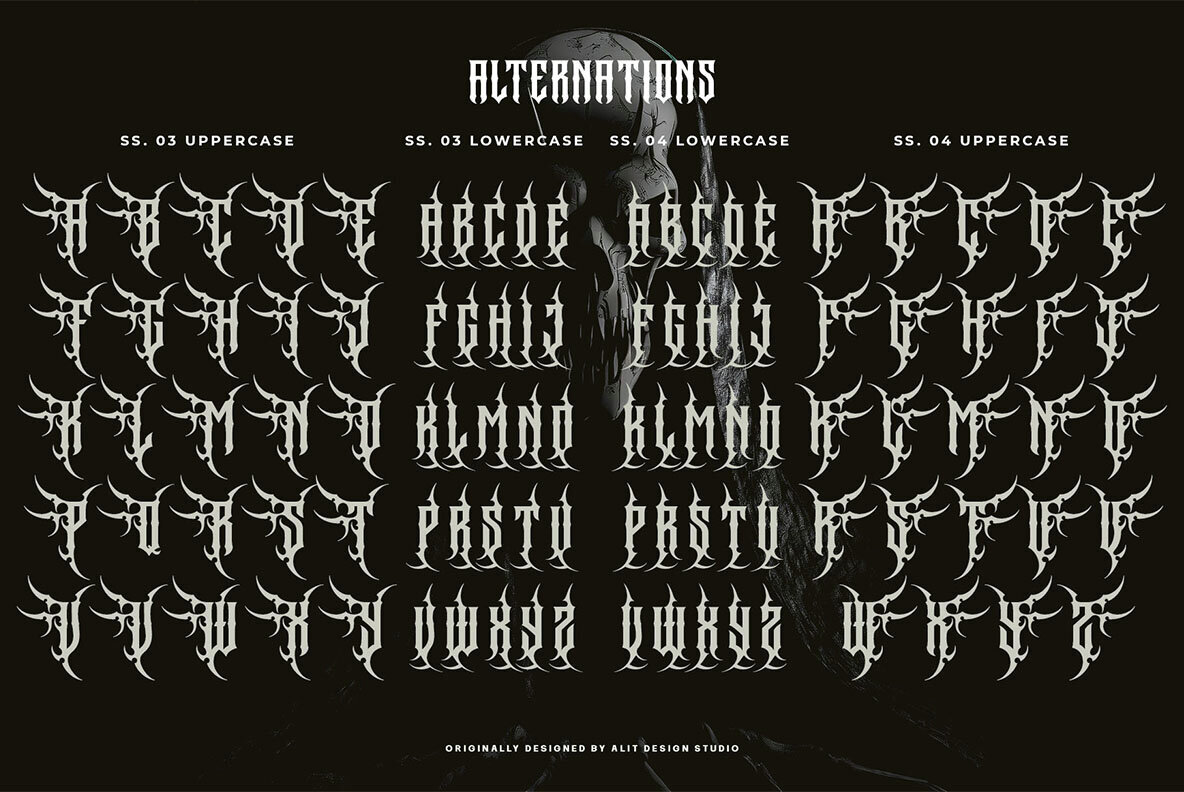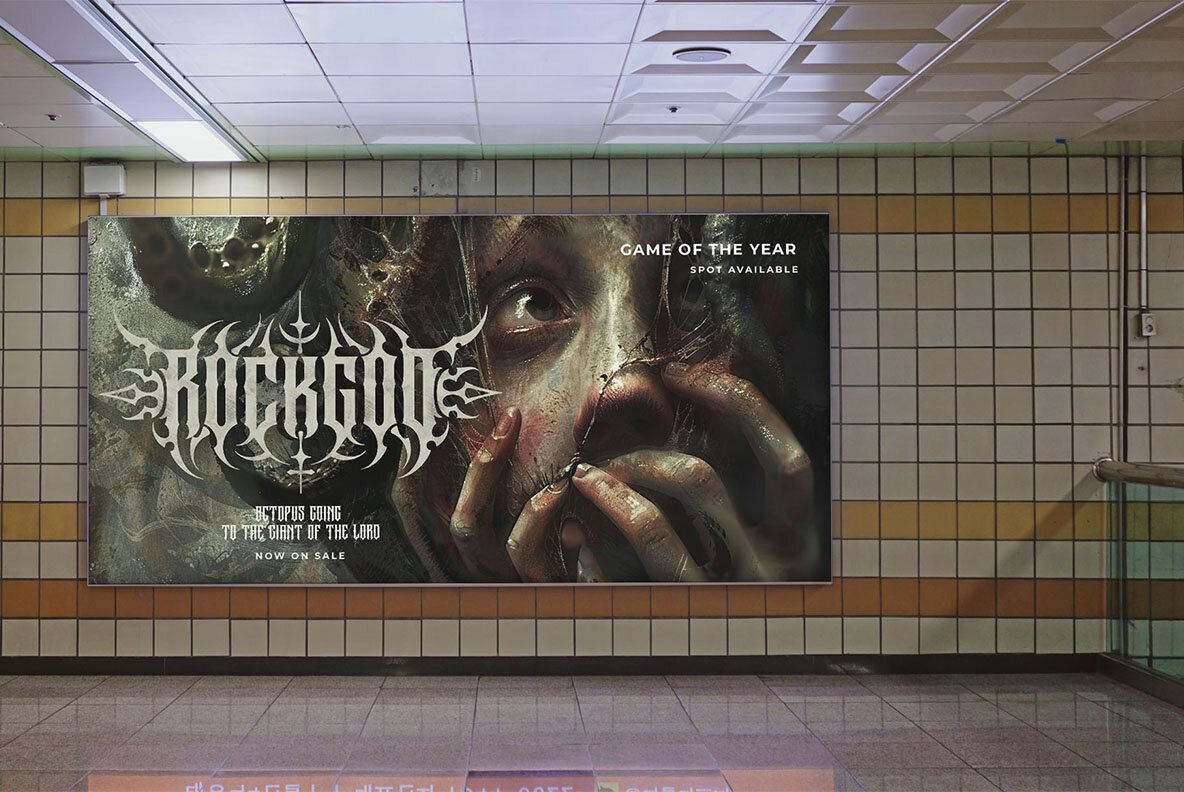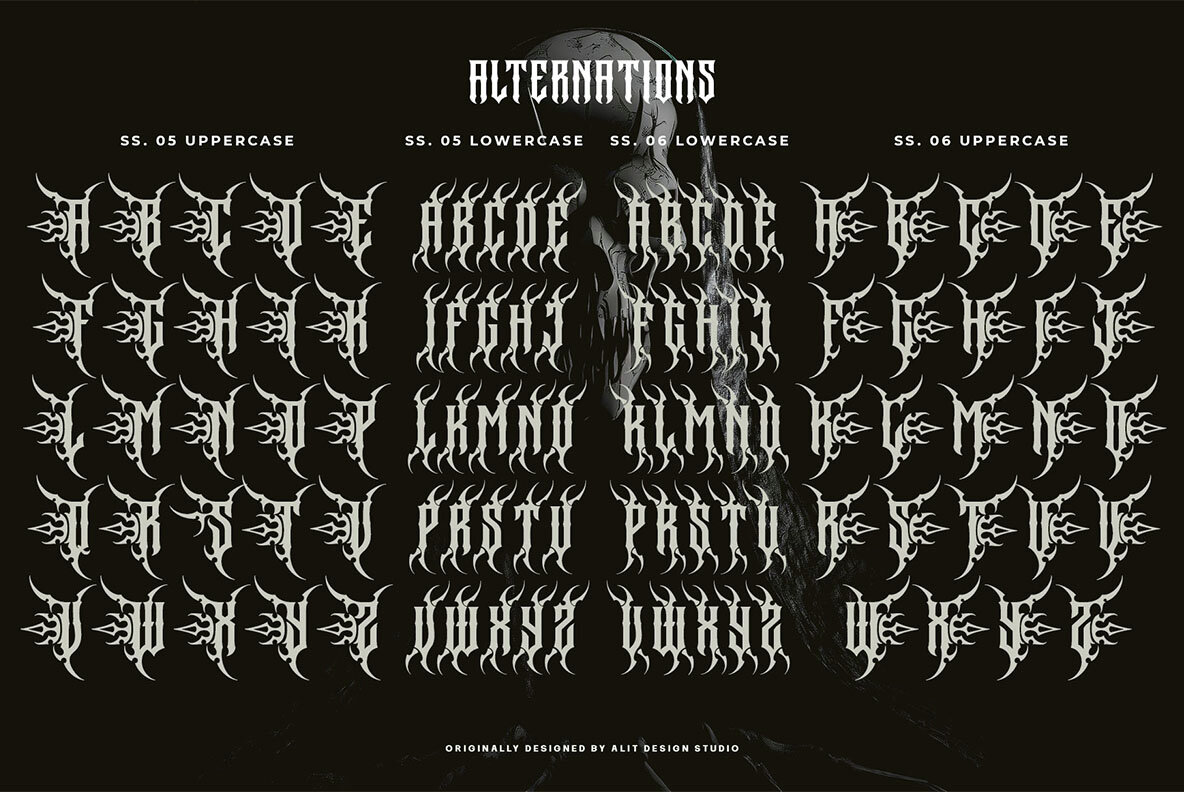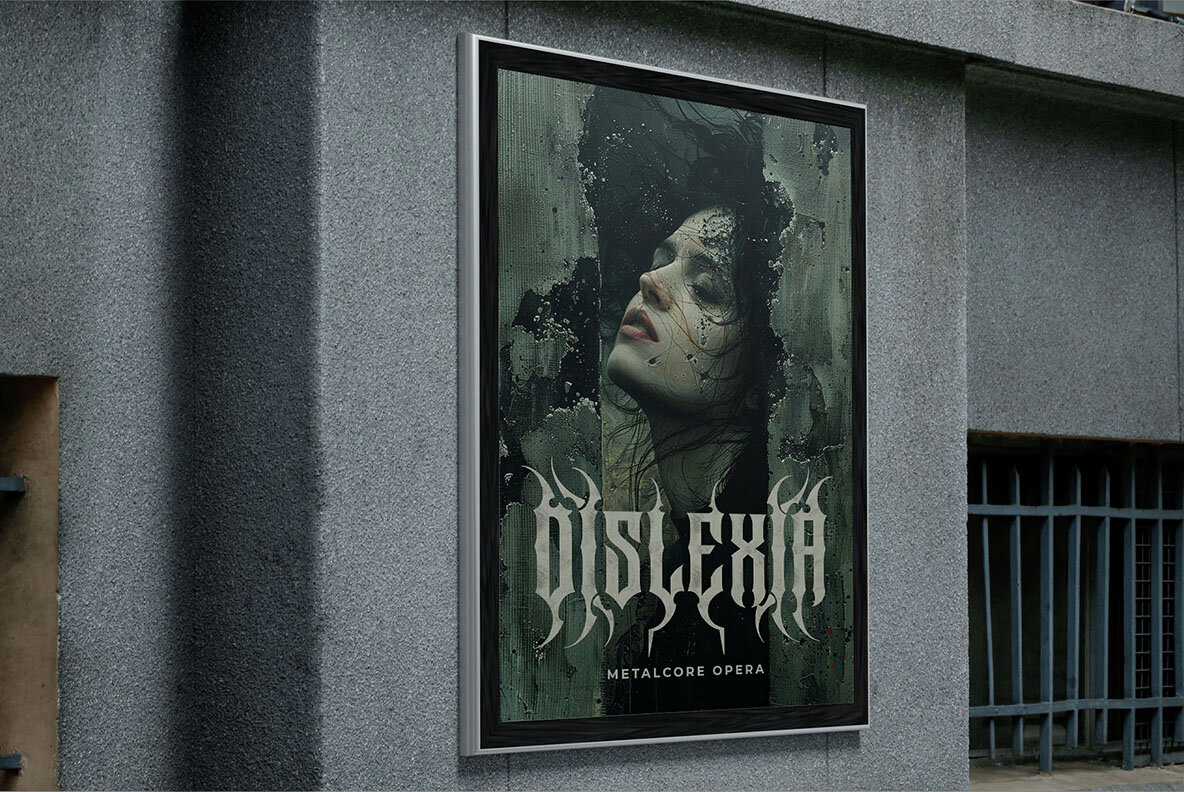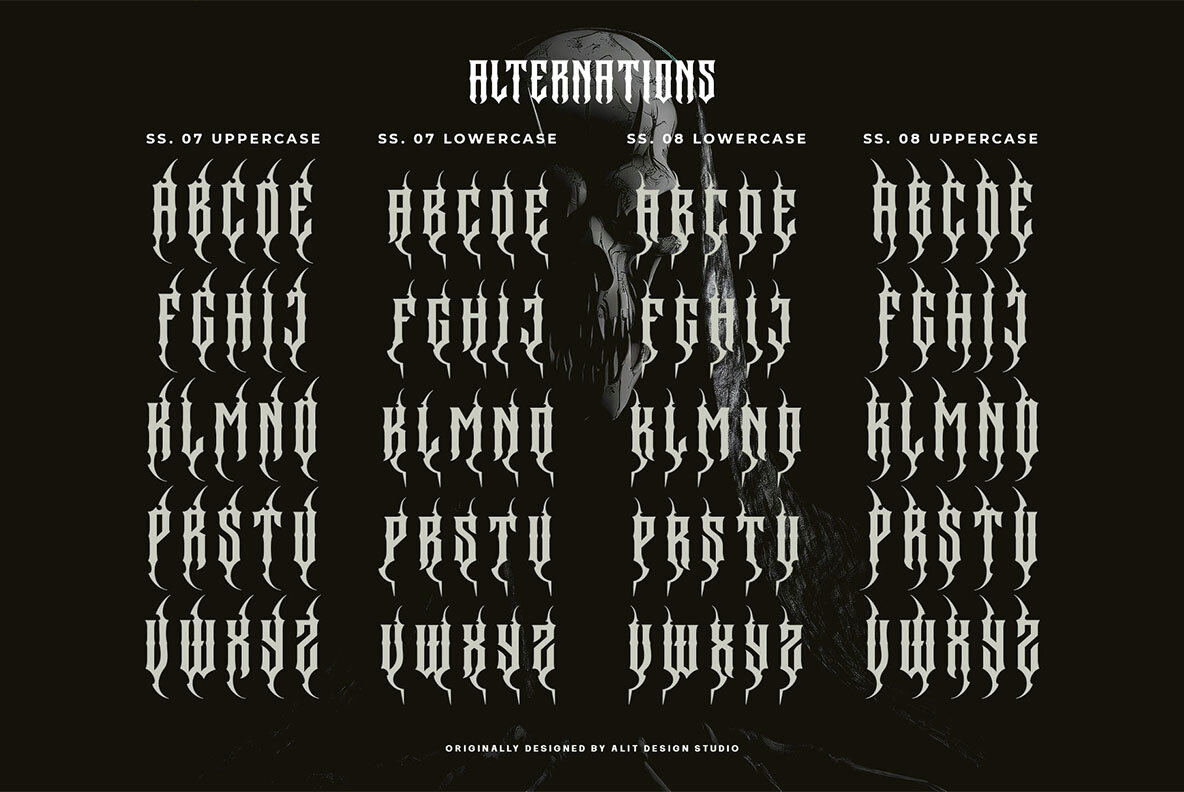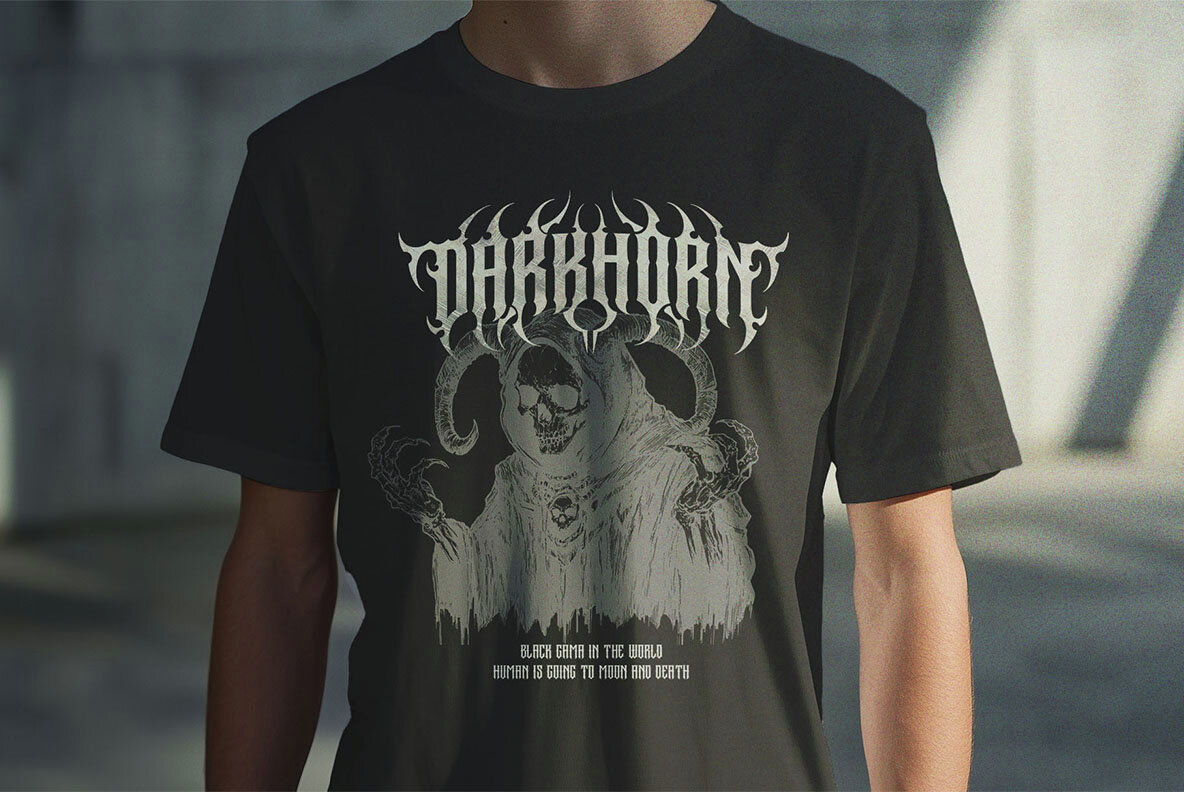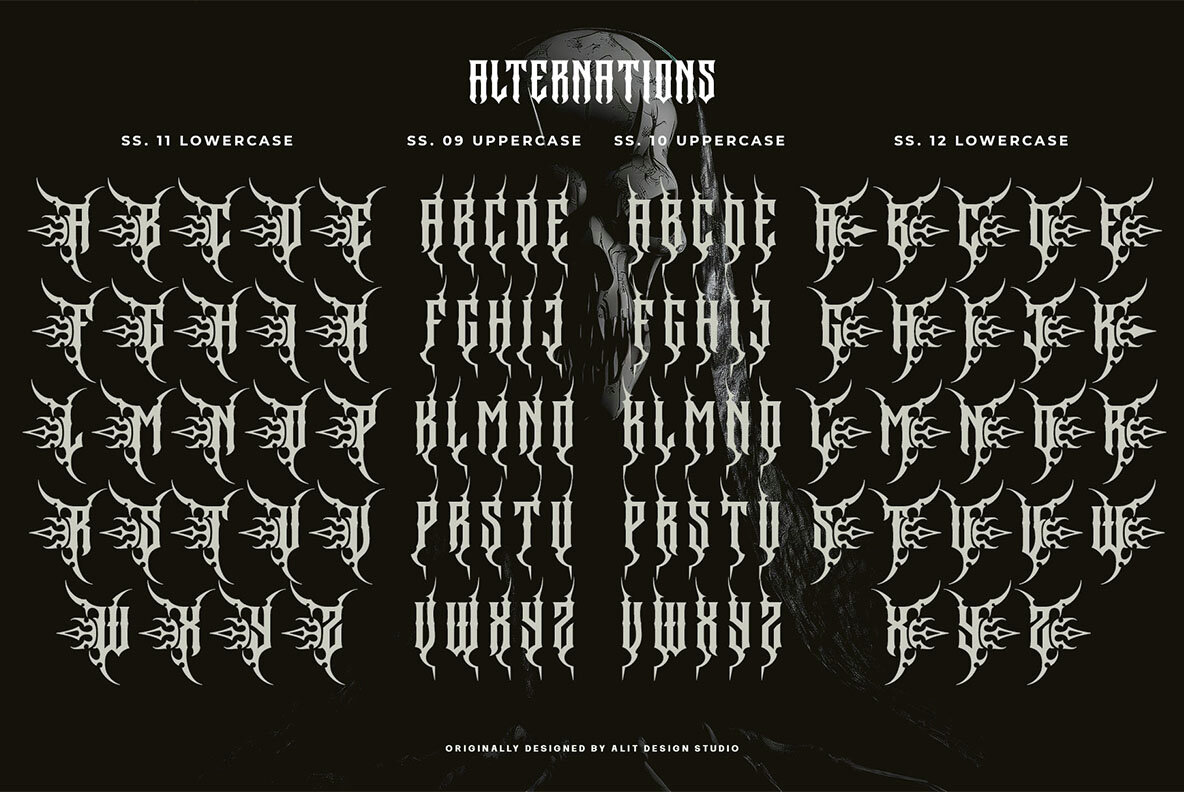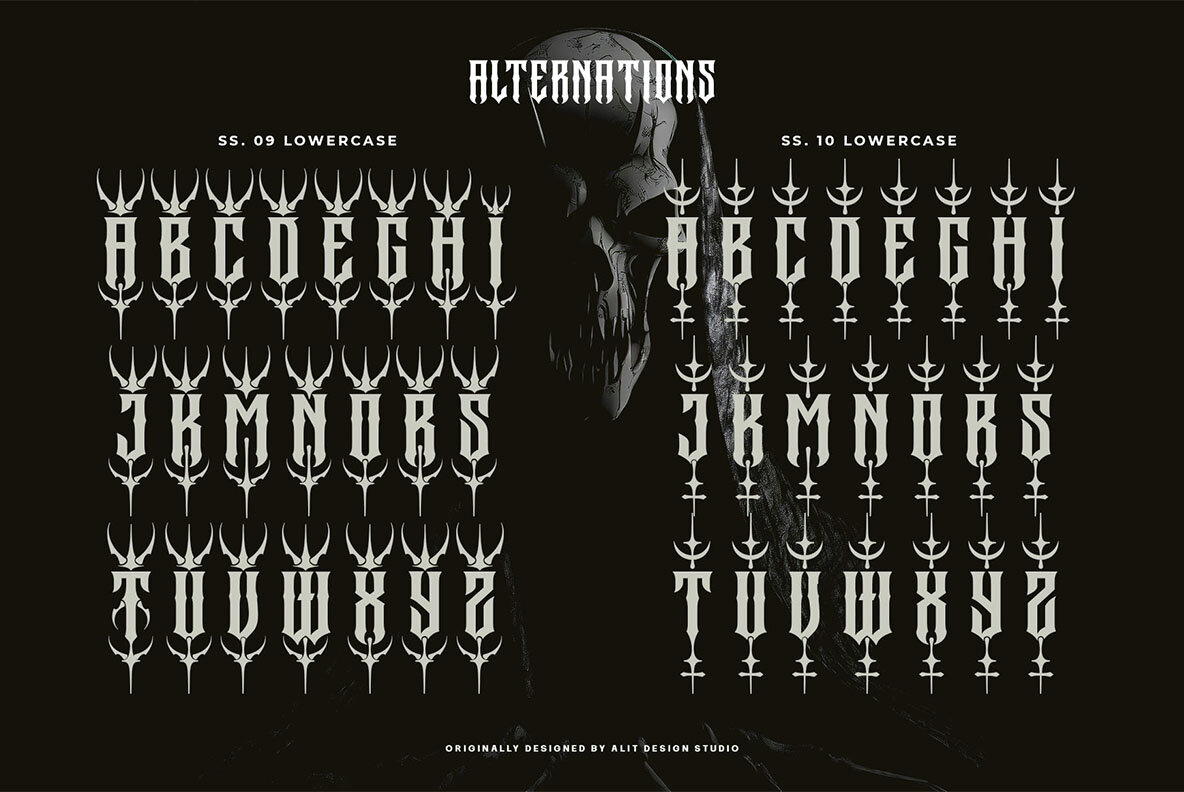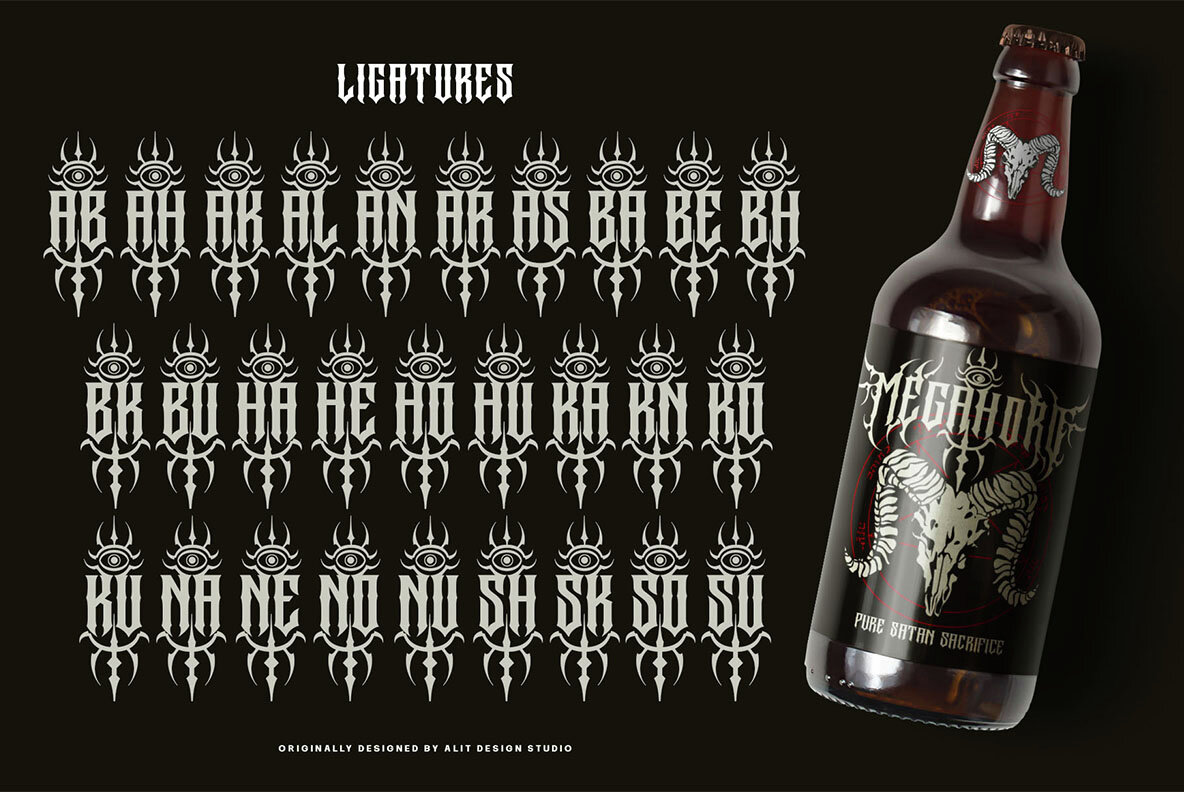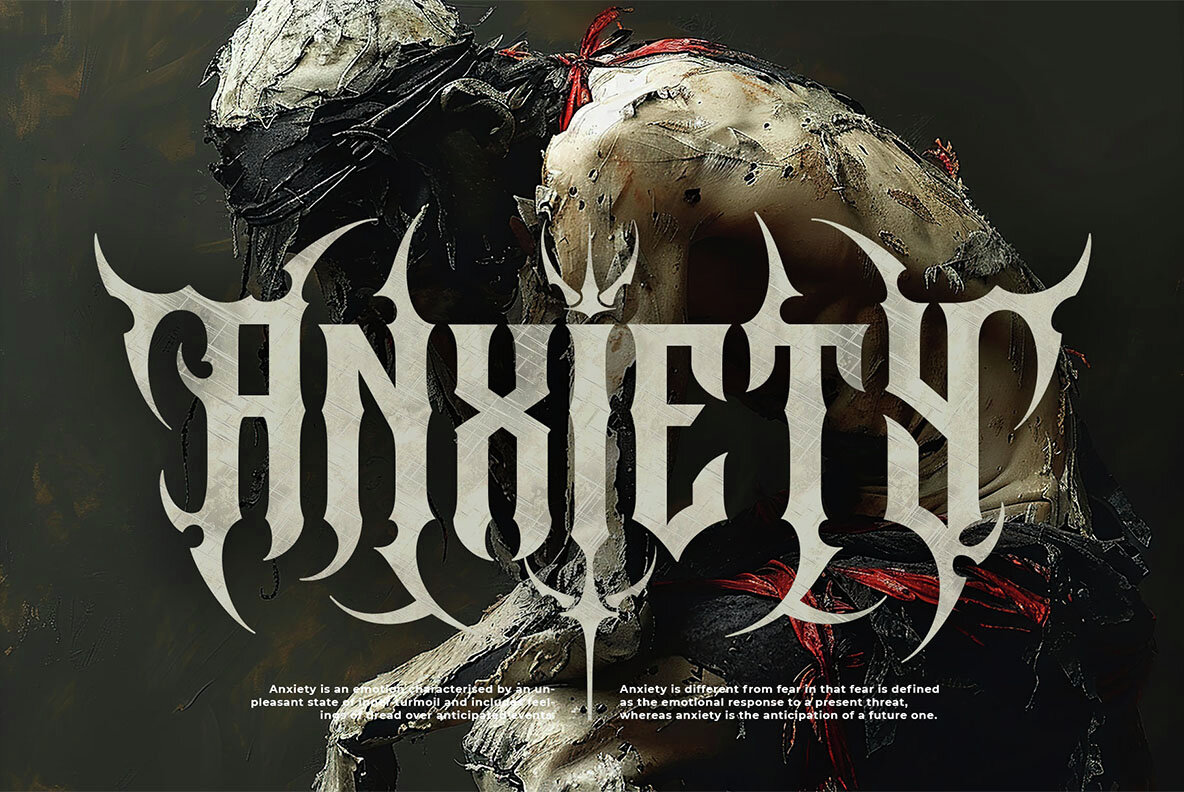
Megasord Font
Megasord Regular
Megasord Typeface unleashes the fierce power of modern death metal design. Inspired by the raw energy of the genre, this striking font captures ferocity, mystery, and darkness, featuring elements like tribal shapes, demonic horns, wings, and hellish eyes. Perfect for those aiming to create attention-grabbing designs, Megasord exudes a cruel yet captivating aura.
The typeface boasts a massive character set of 783 characters for unmatched versatility. It includes extensive alternates to personalize letterforms and dynamic ligatures to enhance its aggressive aesthetic. Add extra intensity with decorative swashes and enjoy easy access to all glyphs with PUA encoding. Megasord also supports multiple languages, broadening your creative possibilities.
Ideal for band logos, album covers, posters, merchandise, tattoos, and any project that demands a menacing yet artistic edge, Megasord sets the stage for visual impact with its intricate tribal-inspired details and hellish motifs. Transform your designs with Megasord Typeface and embrace its modern, primal power.